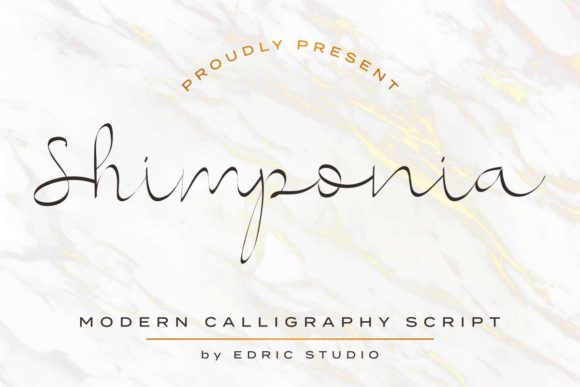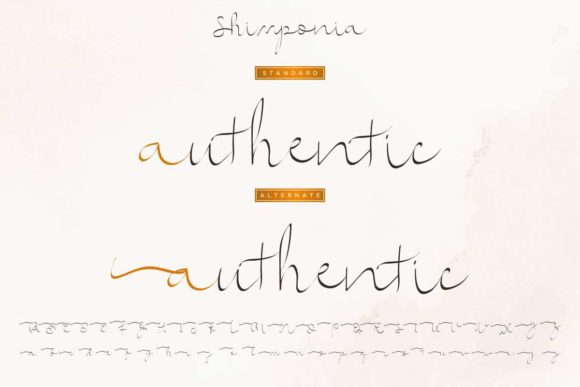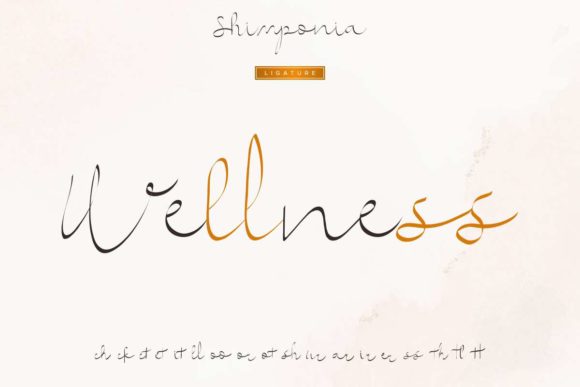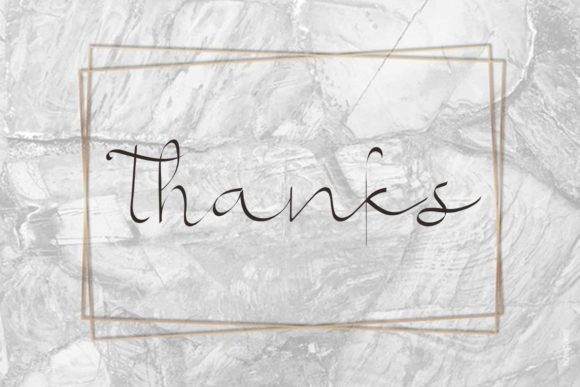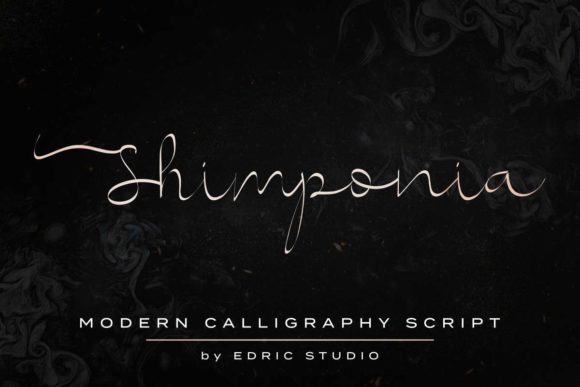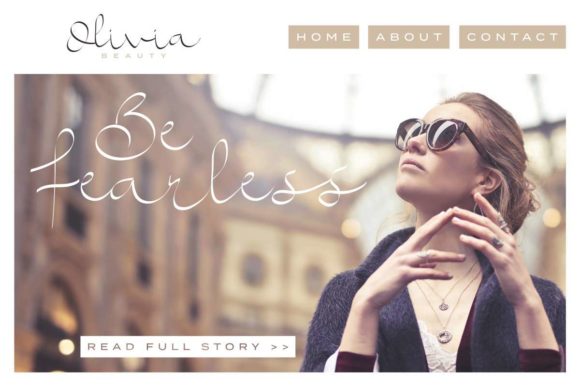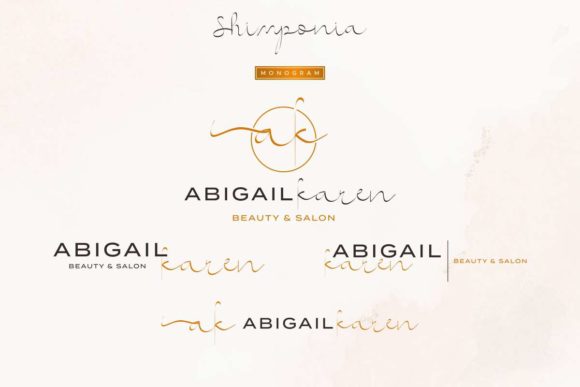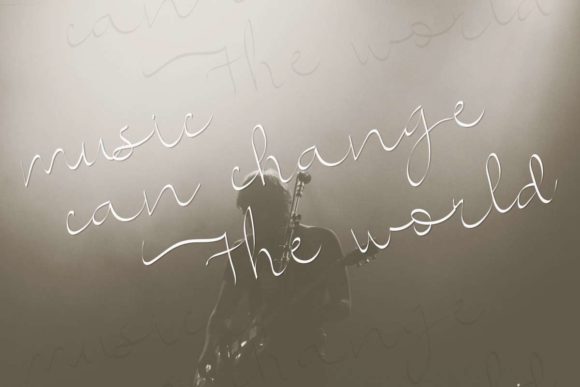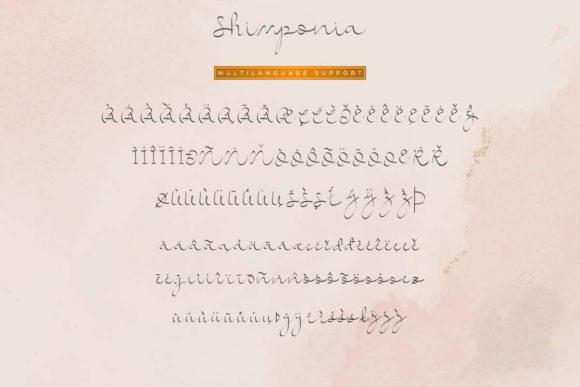
Shimponia Font
Shimponia is an elegant and light script font that will turn any design project into a true standout. Get inspired by its modern simplicity.